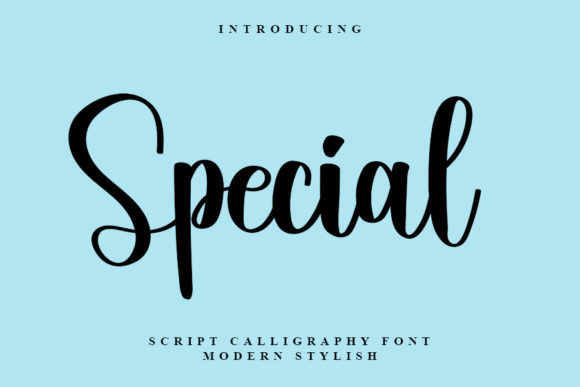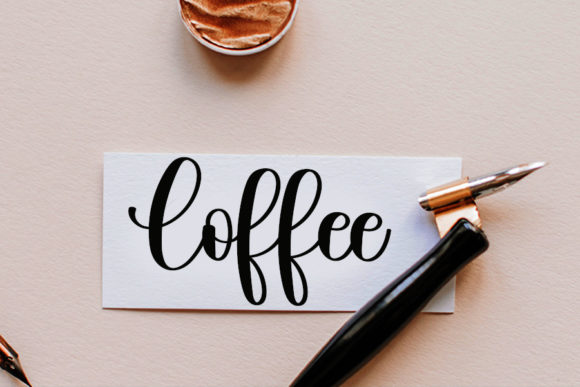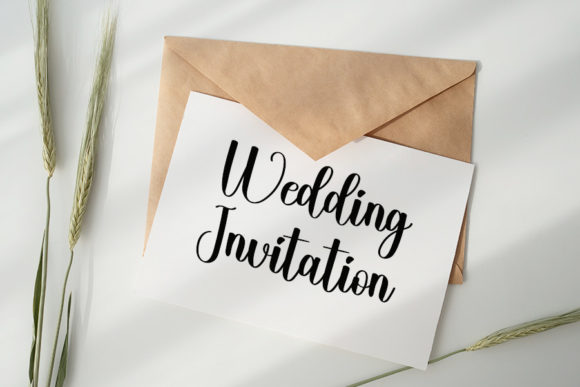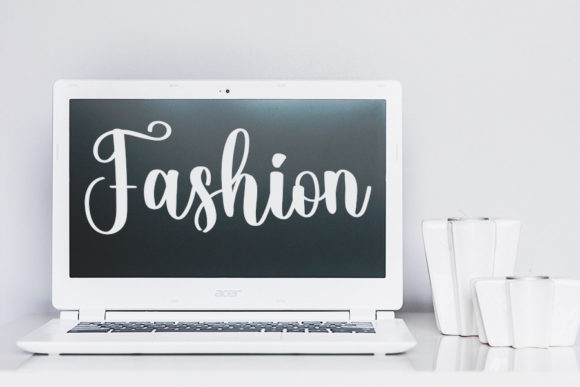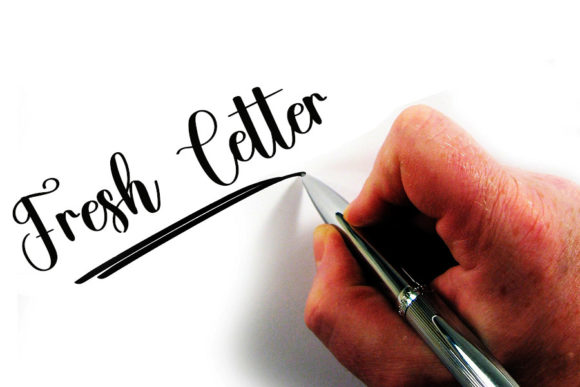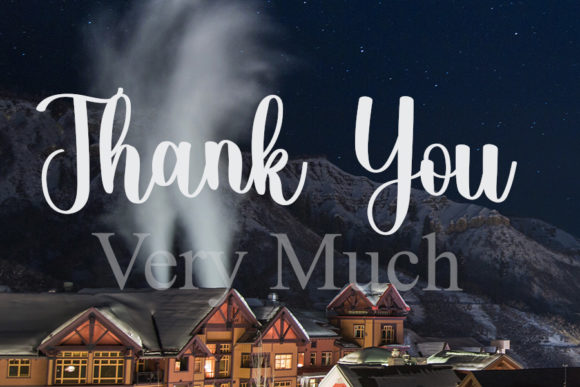
Special Font
About Special Font
Special is a gorgeous and bold handwritten font. It will elevate a wide range of crafting ideas, from cards, to branding, labels and much more.